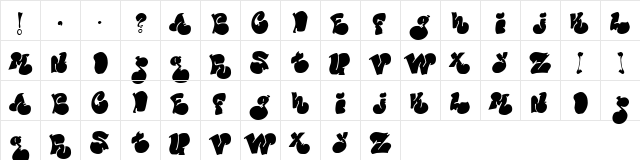
Political Graft Fill Regular
Design Context for Political Graft Fill
Political Graft Fill is a composed and adaptable typeface that performs quietly and consistently across a wide range of design contexts.
Pro Tip: Use Political Graft Fill in both headline and body roles to test its range before committing to a single application.